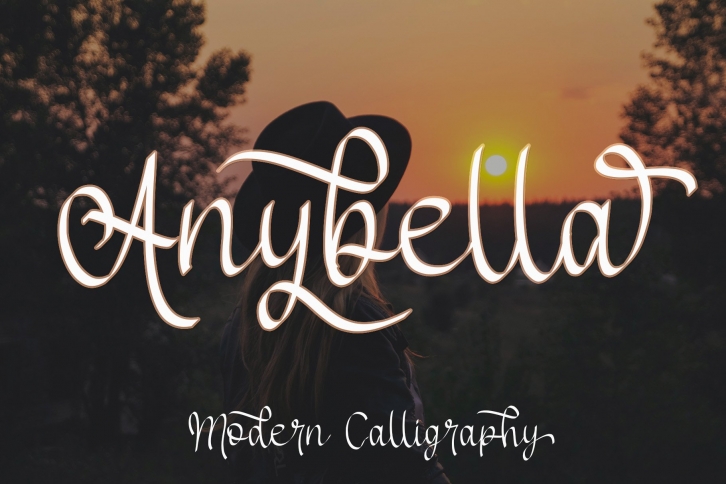
Anybella is a beautiful font that was designed by Letterafa Studio. It's a great choice for designers and creatives who need such a font. It was released on April 22, 2021 and the file size is 16.78 MB. Anybella may give a more youthful, expressive and casual look to your project. It is a very beautiful, refined, elegant, and high-quality font.